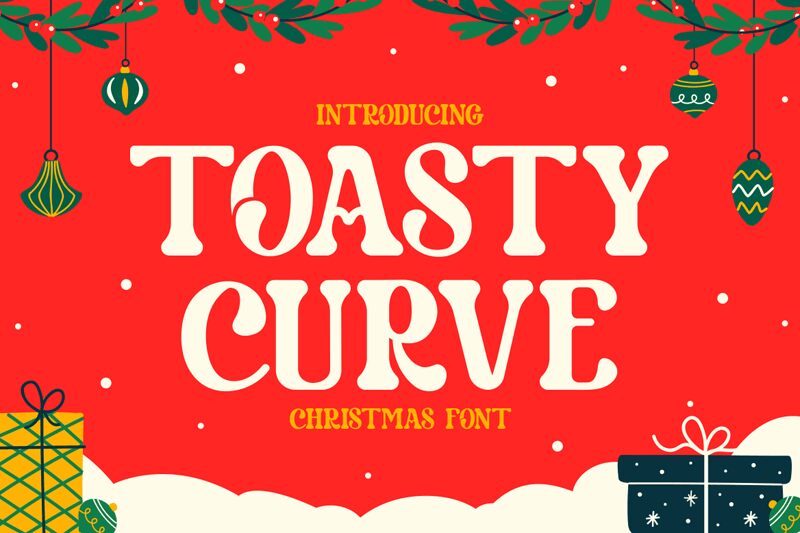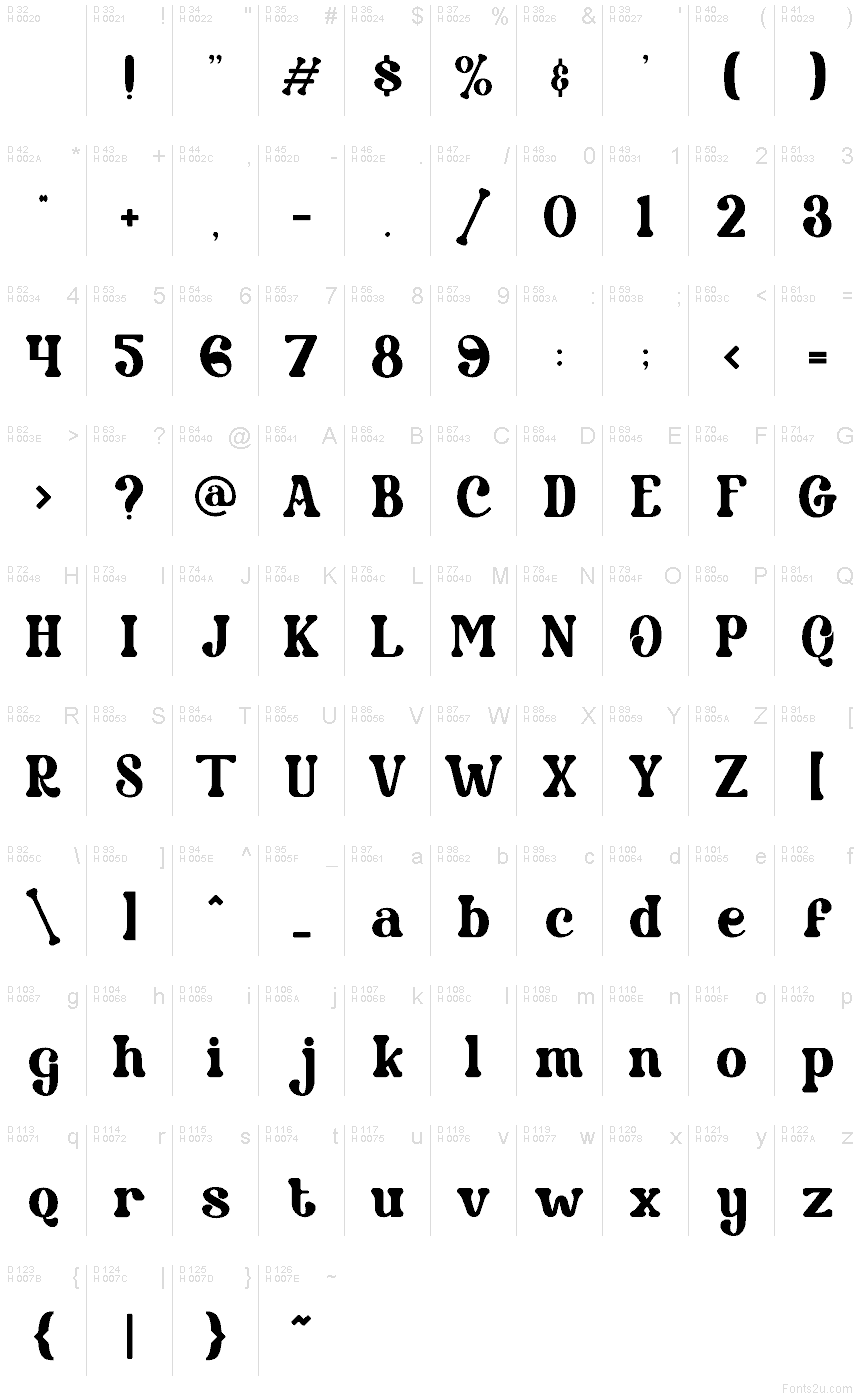
Toasty Curve
Toasty Curve font by PutraCetol Studio is a free Christmas holiday font with soft, rounded strokes that feel as cozy as a mug of hot cocoa. Its chunky curves, playful ball endings, and warm rhythm give every word a storybook sparkle, without slipping into something too fussy or hard to read. Letters sit close and snug, creating a friendly, wrapped-up look that instantly says “festive” even in simple black and white.
Using Toasty Curve, your Christmas cards, party invitations, gift tags, seasonal logos, mug designs, and social media graphics all get the same charming, handmade warmth. This free font shines when used large for short phrases and greetings; pair it with a clean sans serif for small details or body copy to keep layouts balanced and easy on the eyes.